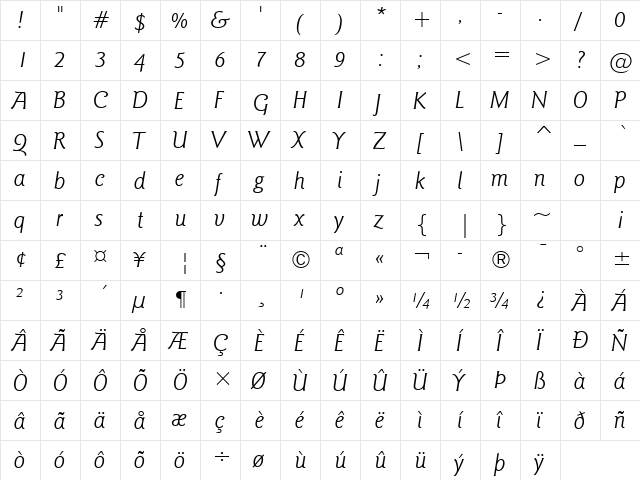
GoudySans Lt BT Light Italic Font Preview
Design Context for GoudySans Lt BT Typeface
GoudySans Lt BT takes a measured approach to typography — its balanced proportions and neutral character make it a reliable workhorse for both digital and print work. The dynamic lean of this cut emphasises speed and emphasis in any layout. The delicate stroke weight brings airiness and refinement to layouts.
Pro Tip: Try GoudySans Lt BT for annotation and caption copy alongside an upright companion — the contrast in angle creates a dynamic but ordered typographic system.